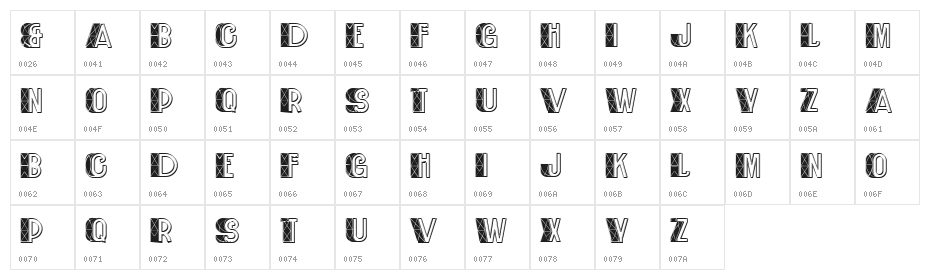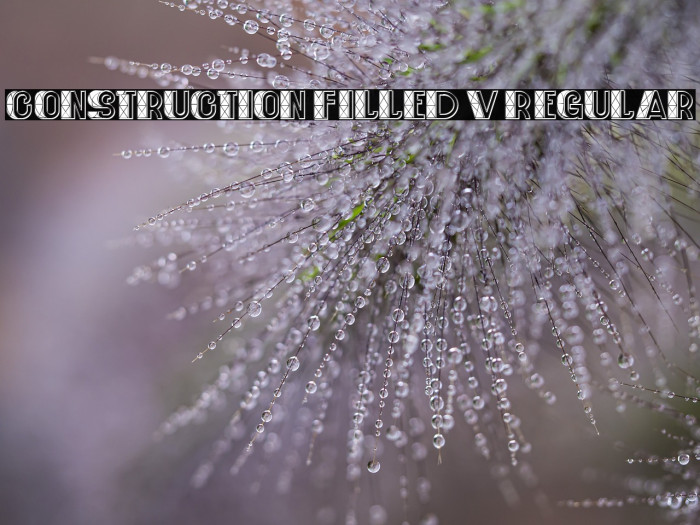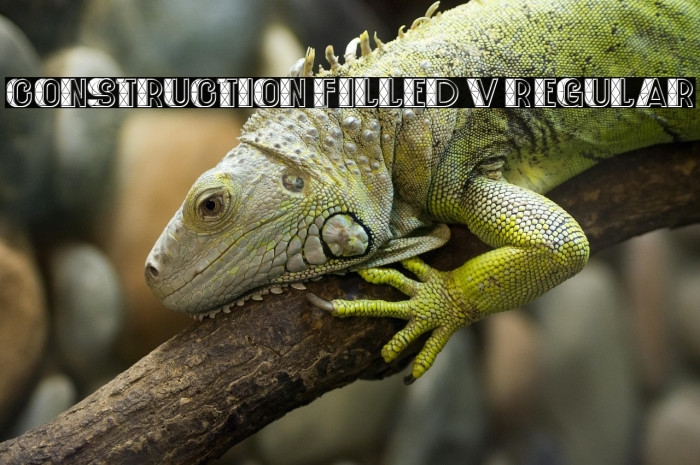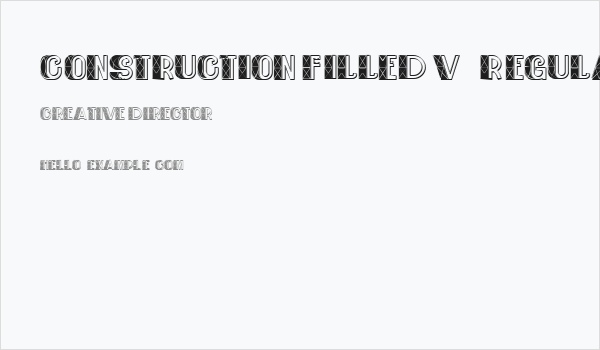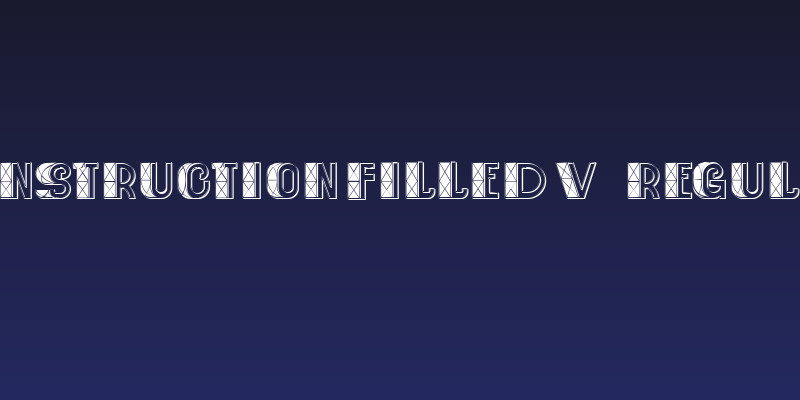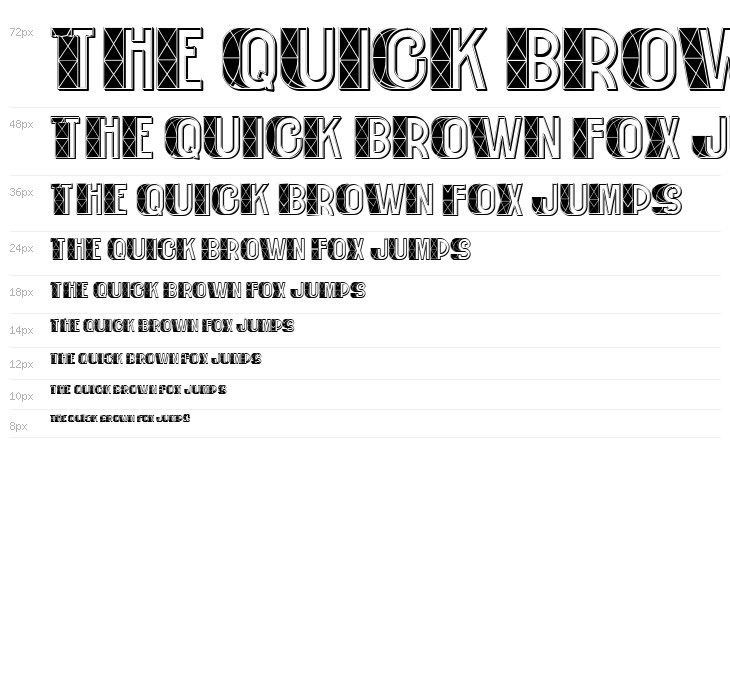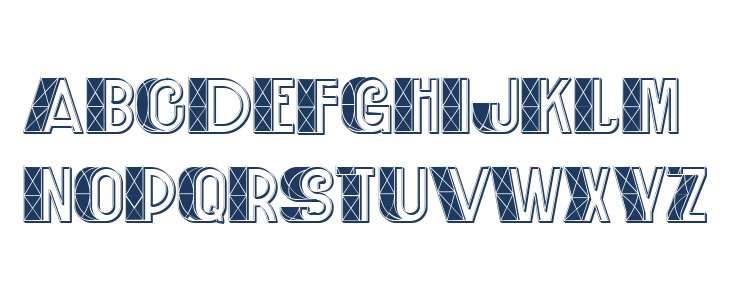
Construction Filled V1 Regular Font
Construction Filled V1 Regular Description
This font features a bold, geometric design with a unique construction pattern. Each character is filled with a series of intersecting lines and shapes, creating a dynamic and industrial aesthetic. The uppercase letters are prominently displayed, showcasing a strong and structured form. The font's intricate design makes it stand out, with each letter appearing as if it is built from a framework of lines and angles. This style is both modern and architectural, offering a visually striking appearance that captures attention.
| Use Case | Logos, Headlines |
| Proposed Projects | Ideal for architectural branding, construction company logos, modern posters, and industrial-themed designs. |